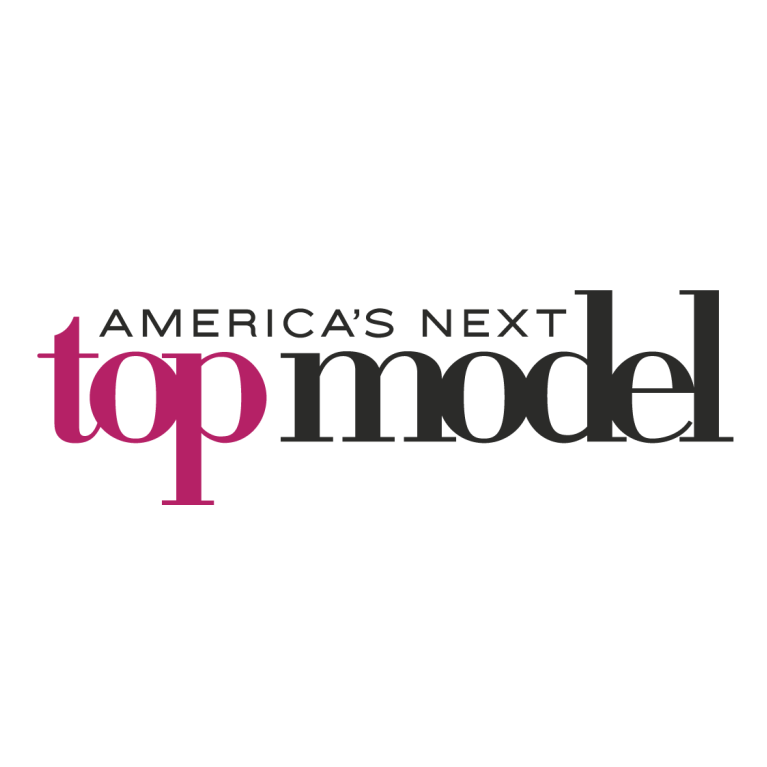
America's Next Top Model Font
Fonts in UseAmerica’s Next Top Model was a reality television show that aired from 2003 to 2018, where aspiring models competed in challenges and photo shoots to become the winner and receive a modeling contract.
The logo of the show used two fonts, namely Knockout 34 Junior Sumo and Didot Bold.
However, starting from cycle 23, a new logo was introduced that featured Helvetica font with the abbreviated title in Helvetica Black and the full title in Helvetica Light, which was tightly kerned.